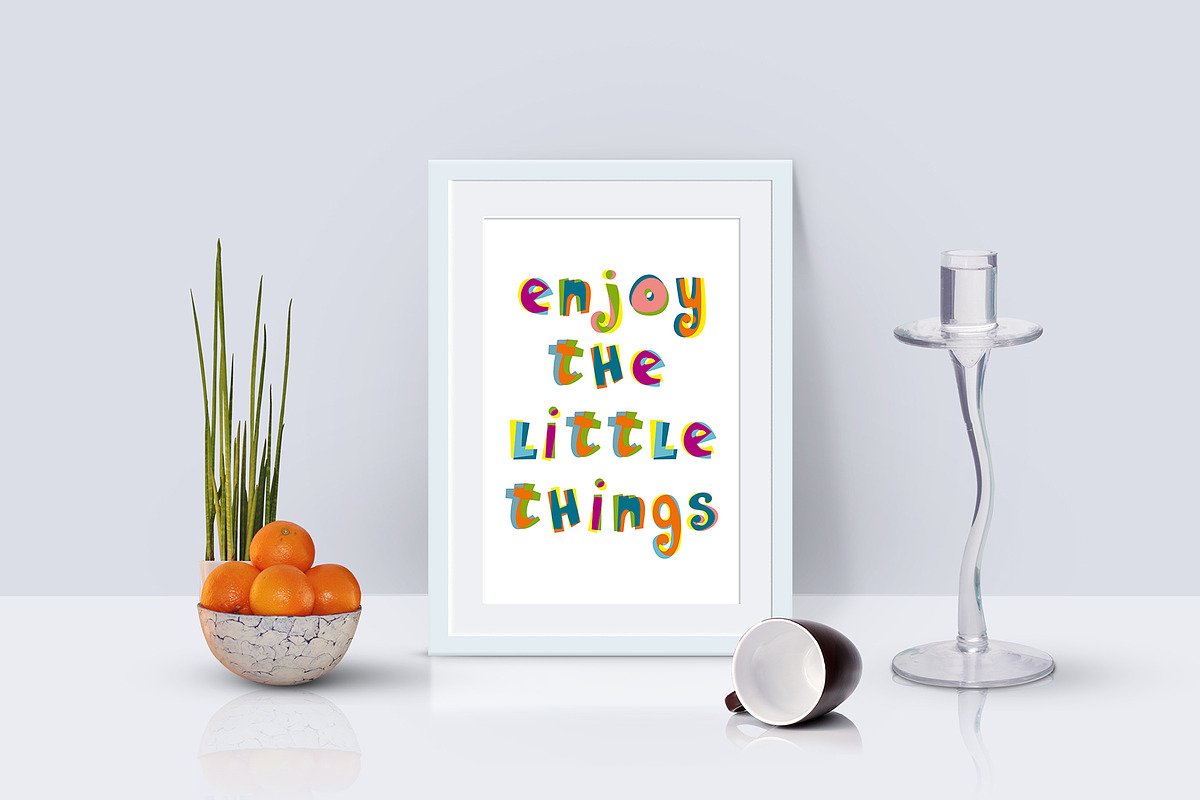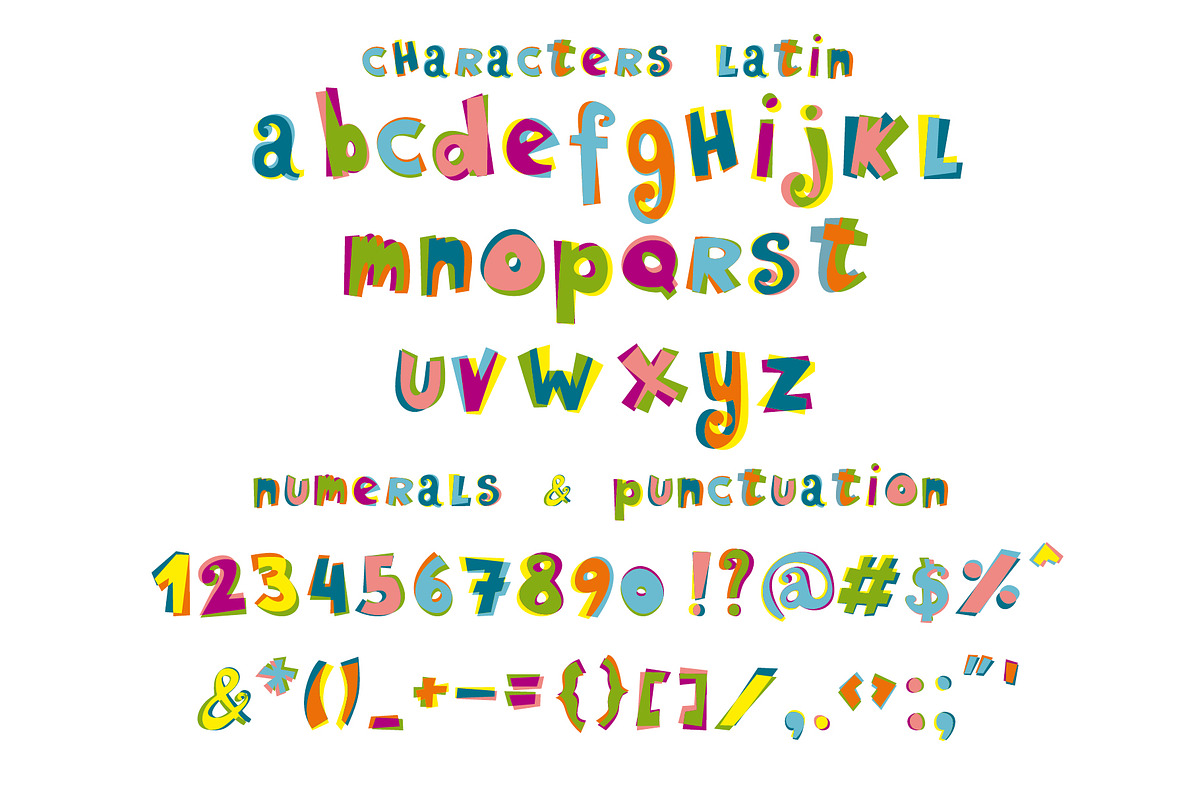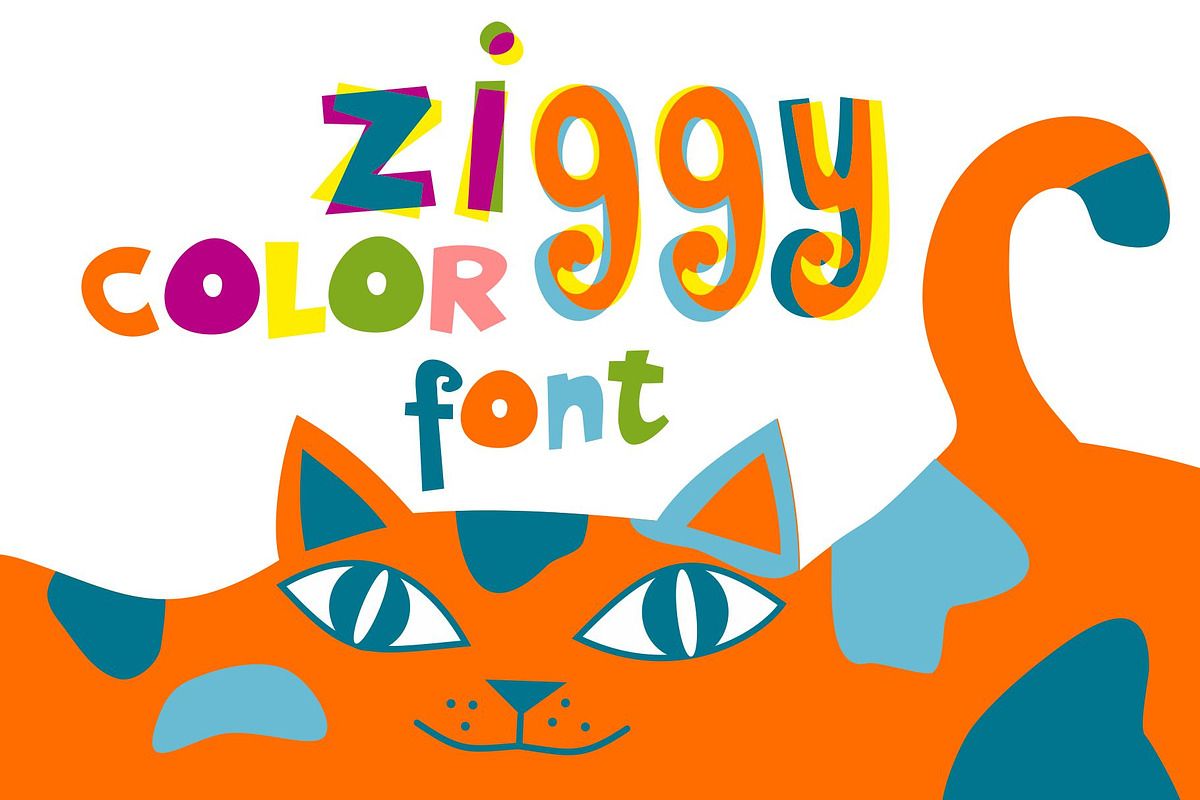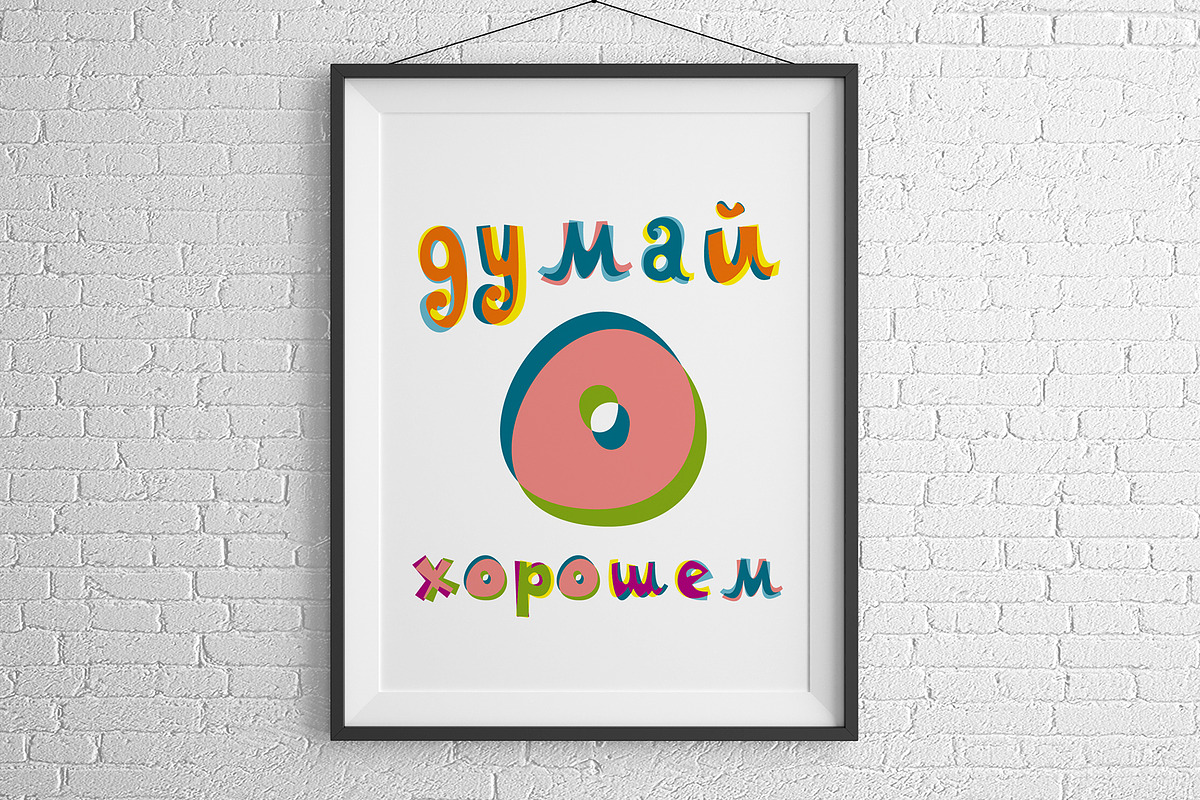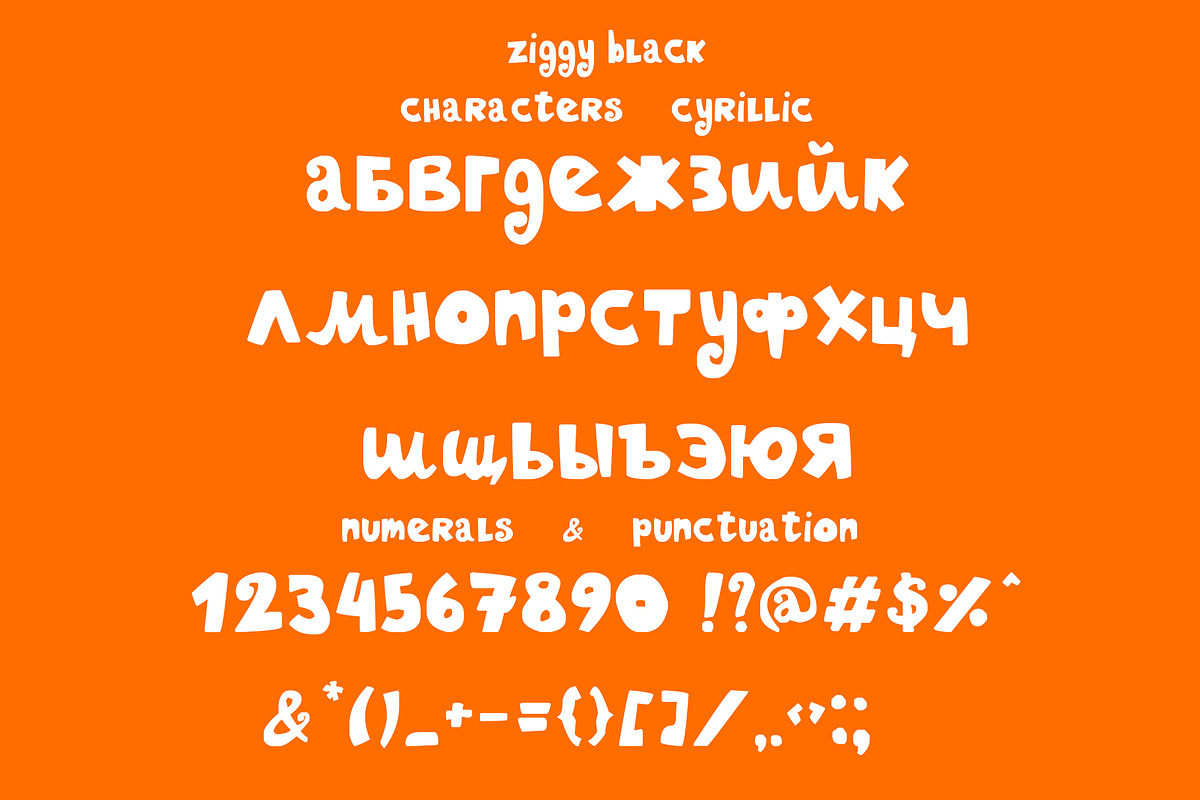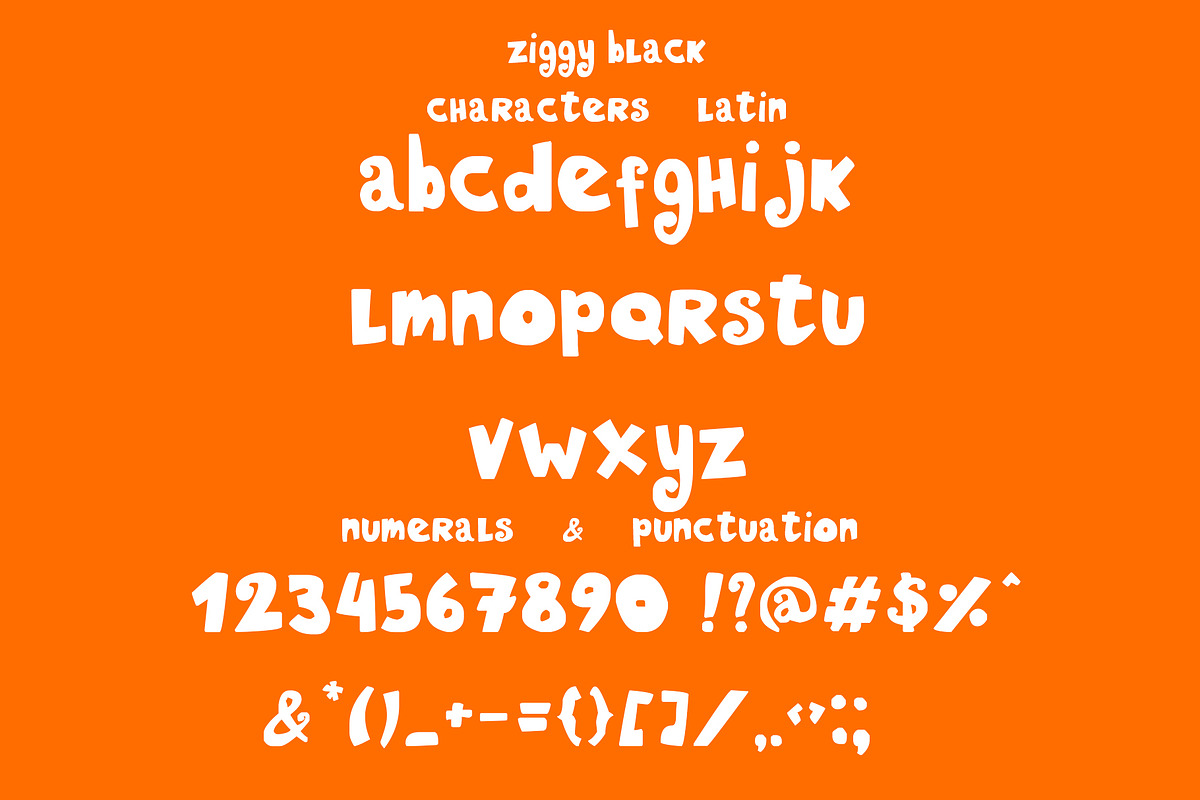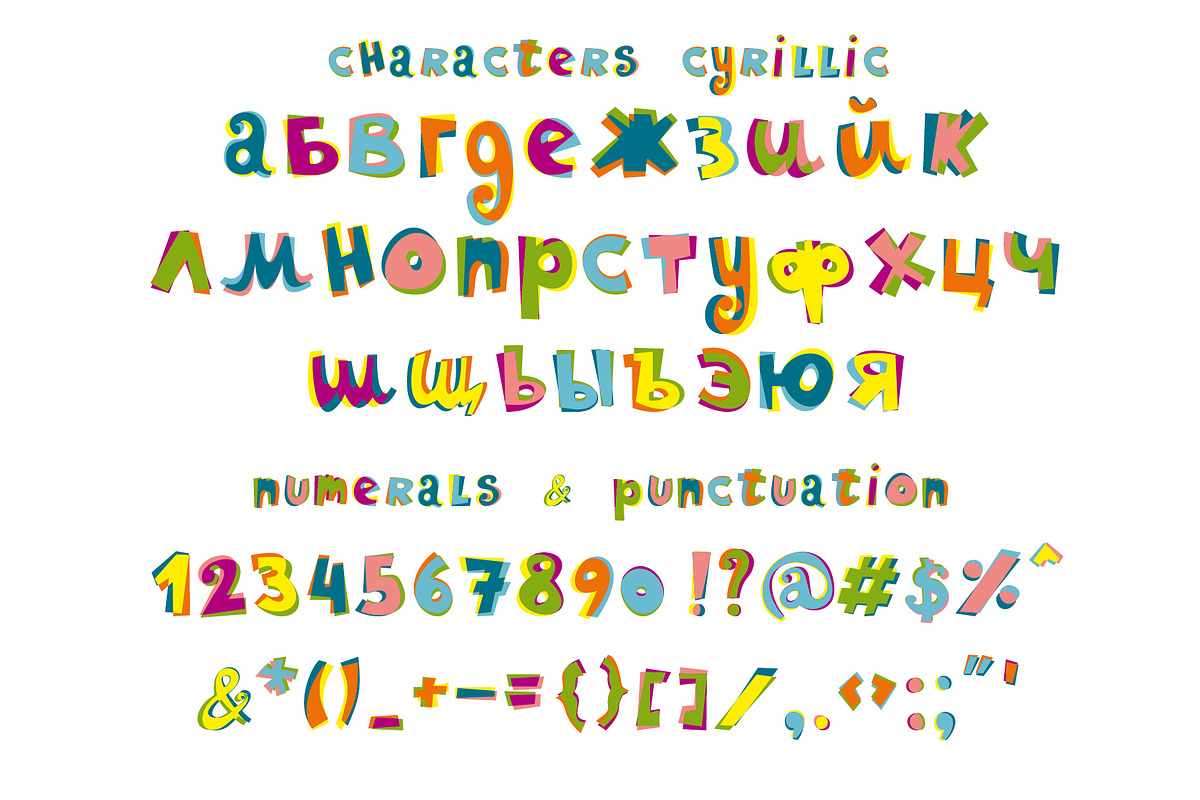
Ziggy color font
I'm happy to present you my new fun color OpenType-SVG font – Ziggy with Latin and Cyrillic letters! It's a fun and cute font! This font work nicely for all sorts of things including t-shirt design, typographic art, social media images and so much more!
Font features: Standard characters A-Z, 0-9,and punctuation + classic versionfor the Latin Basic and Western European set, Cyrillic А-Я set. Thanks and Enjoy!
Ziggy color font by Malena fits naturally into Branding, posters, packaging, typography.